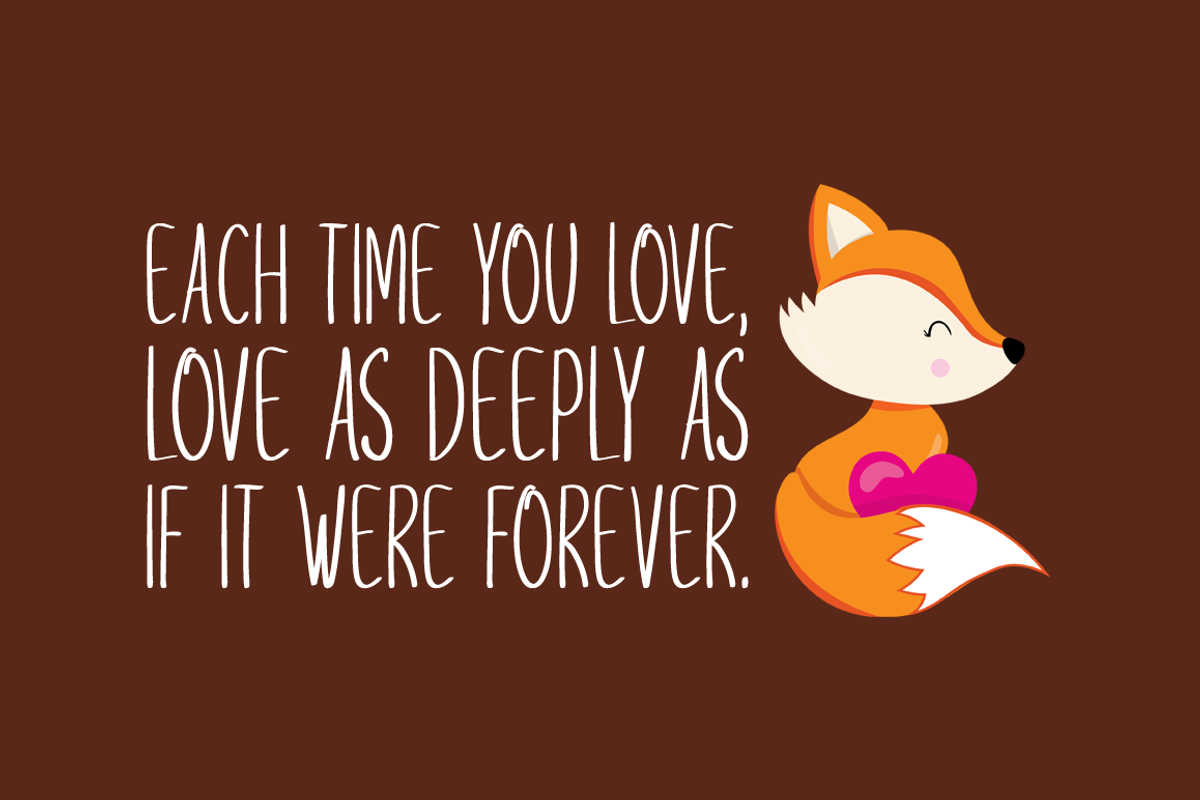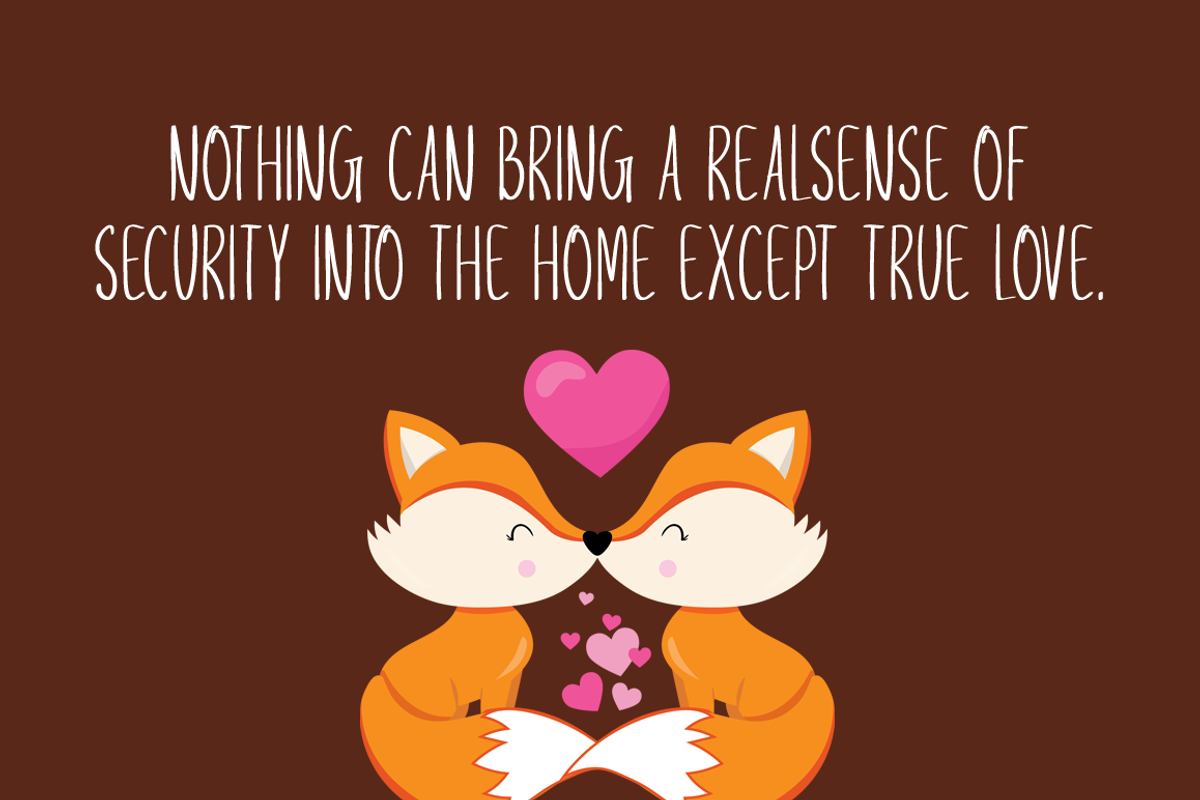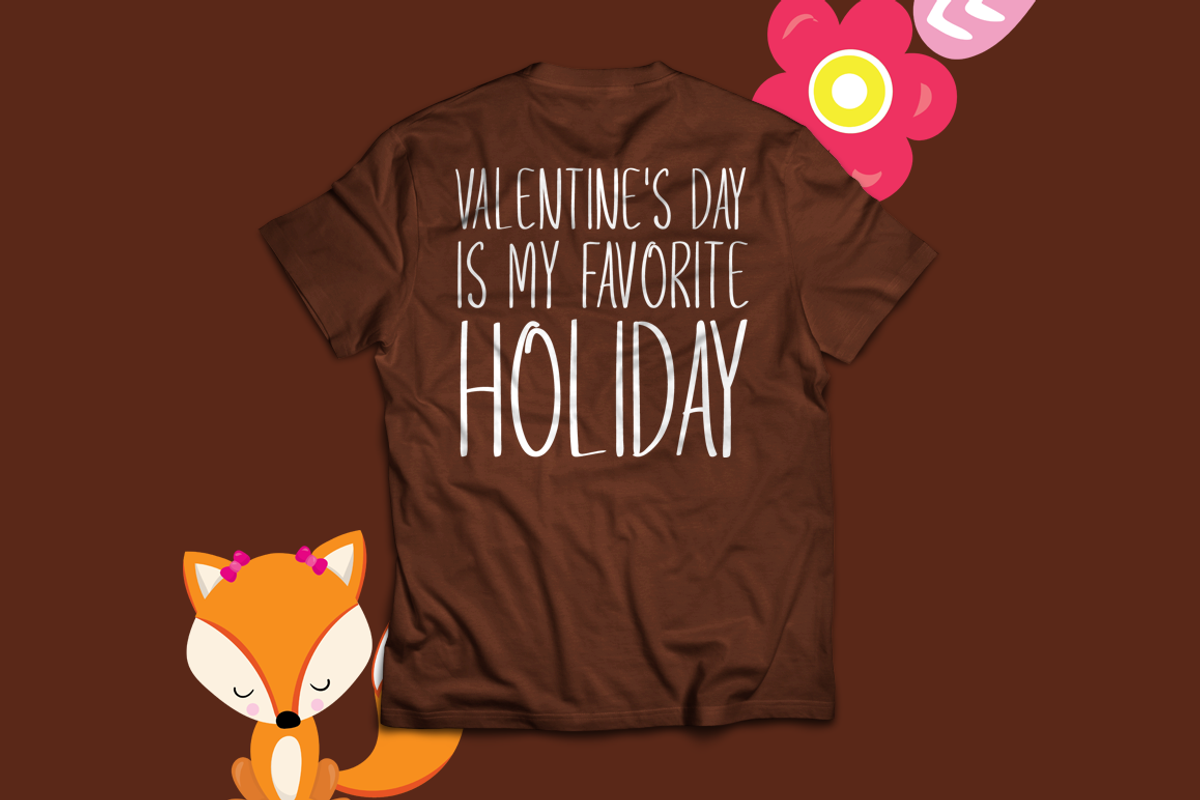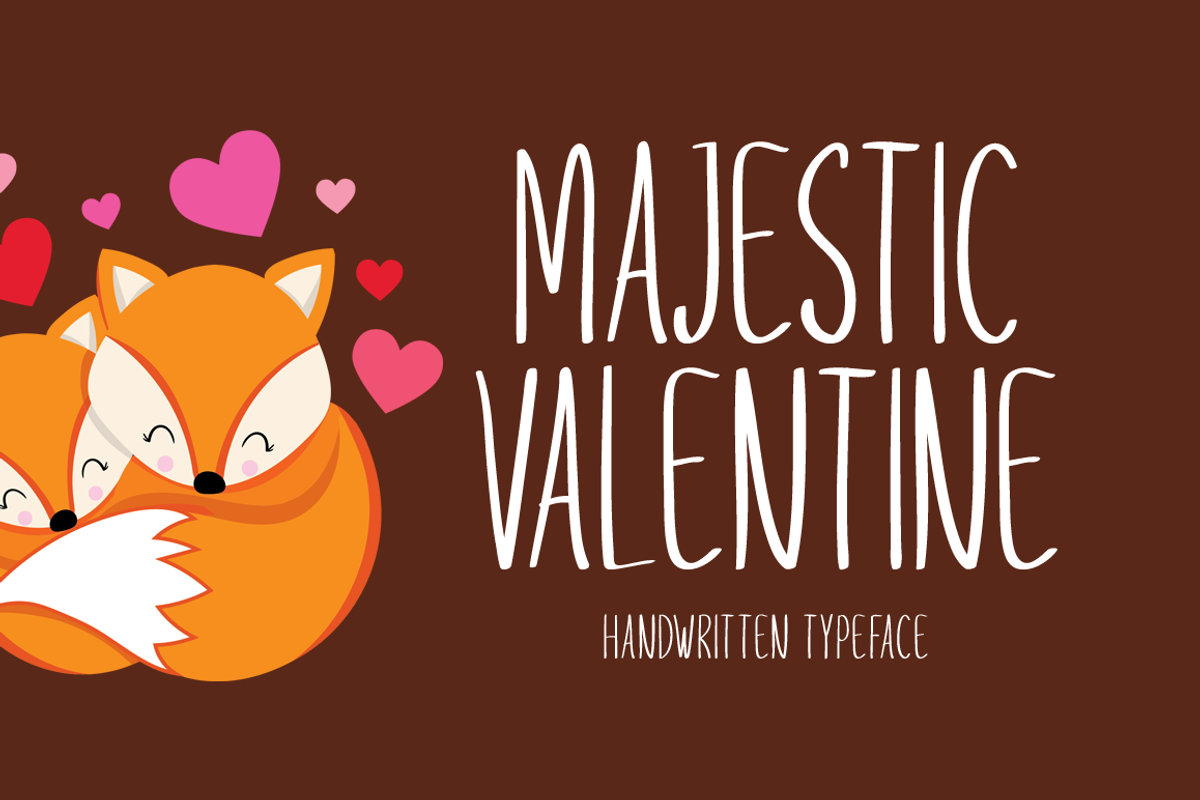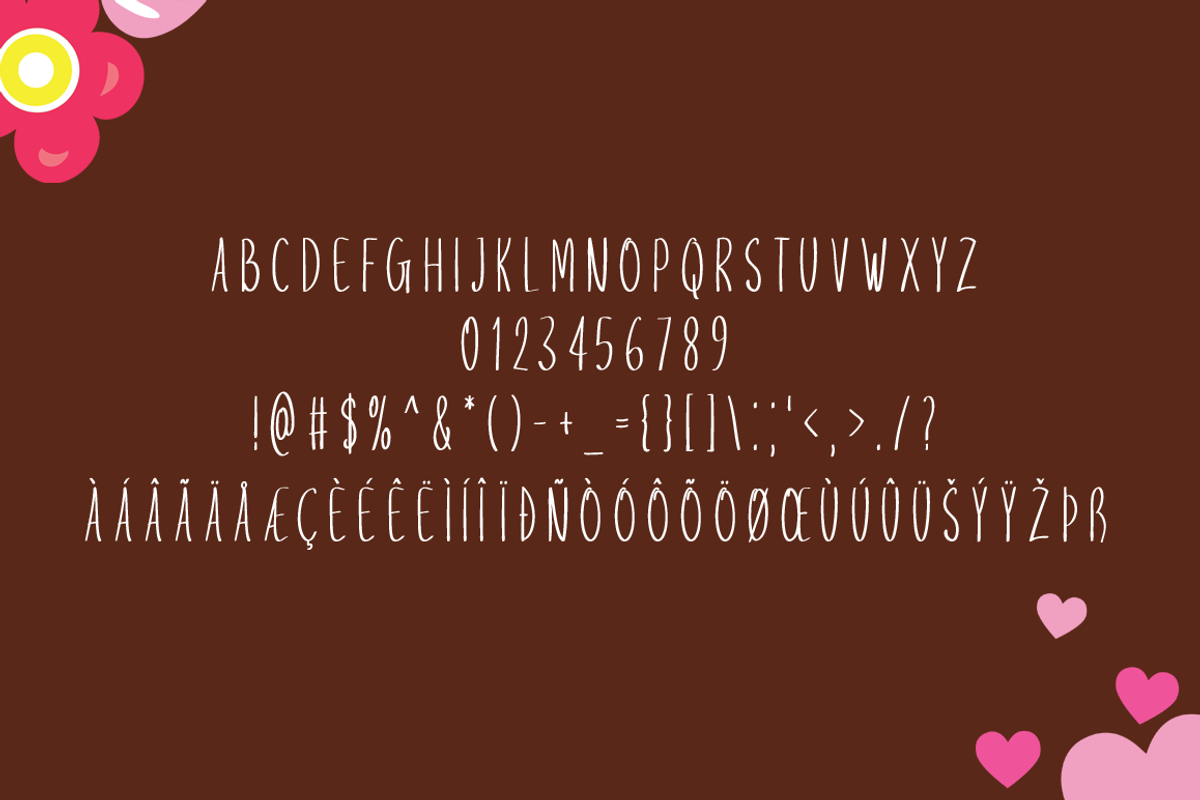
Majestic Valentine Typeface
Introducing Majestic Valentine!
Majestic Valentine is a tall and fun handwritten font. It features a cute and joyful style that will take your designs to the next level!
Includes a range of multilingual support